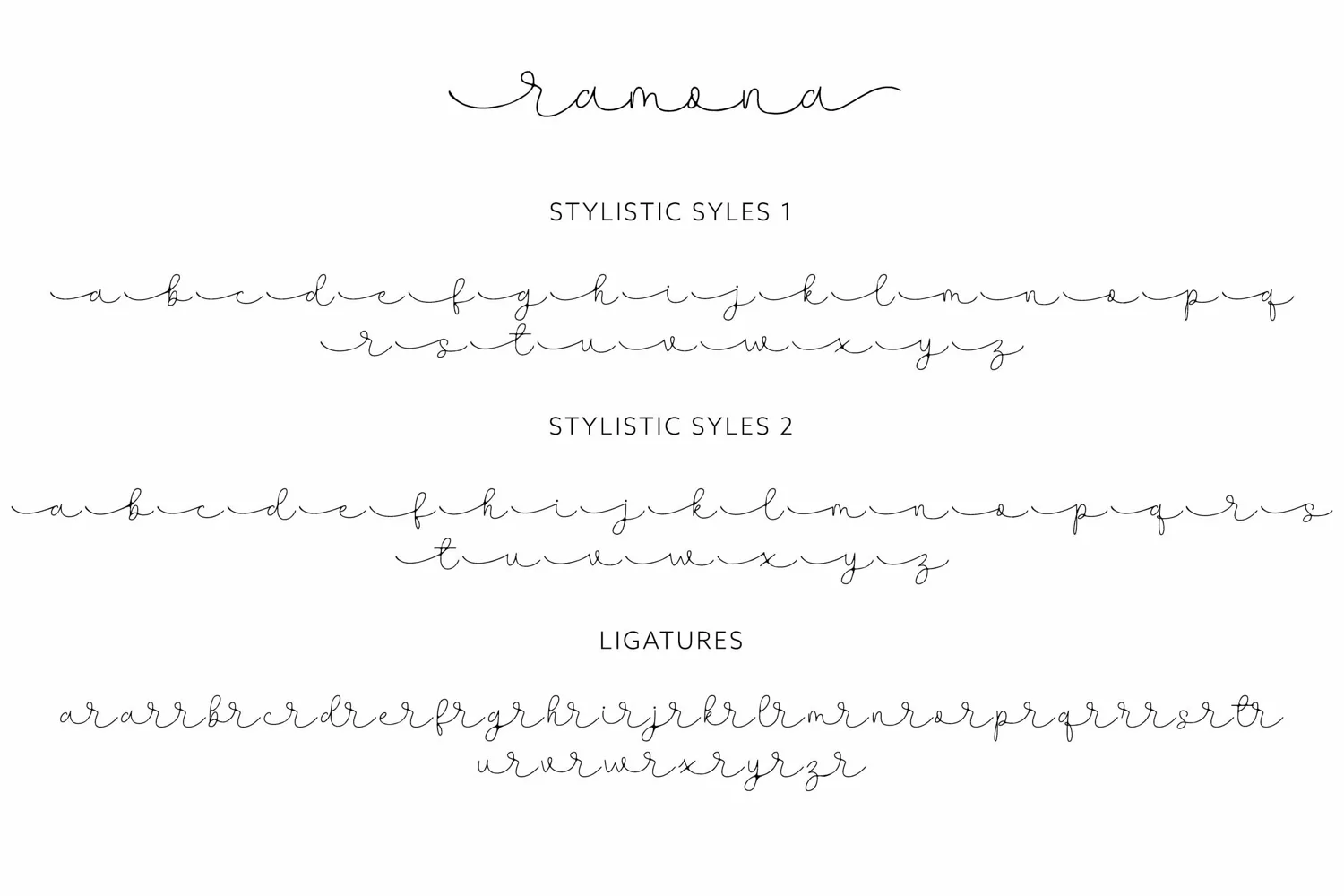
Introducing Ramona is a stylish modern handwritten font with smooth nature has a classy, elegant and modern look that can be used for logos, branding, invitations, stationery, wedding designs, social media posts, and much more! This font is PUA encoded which means you can access all of the available glyphs and swashes with ease!